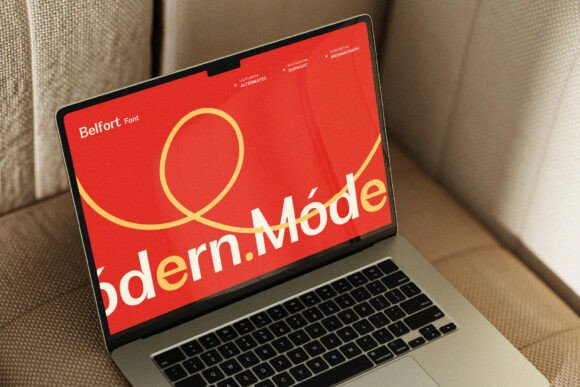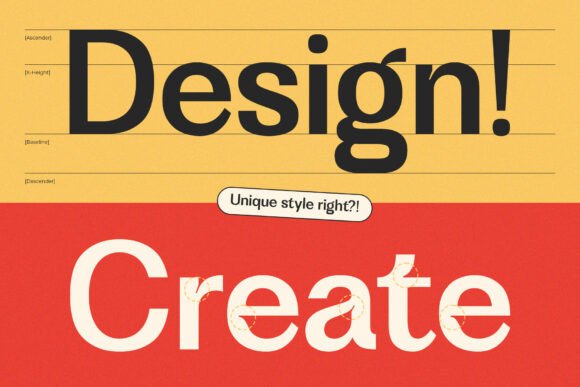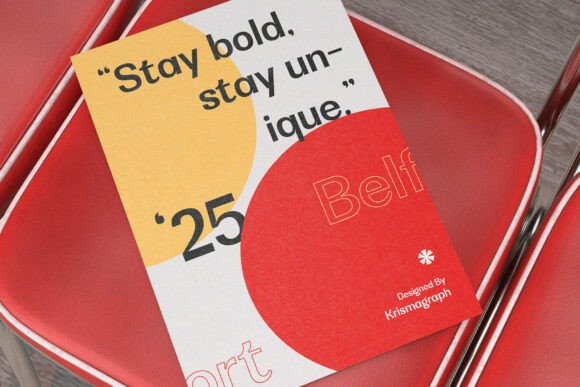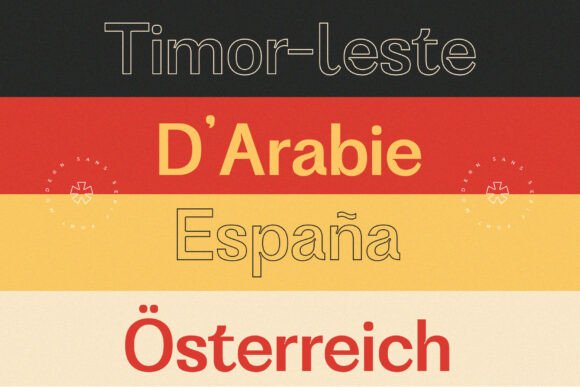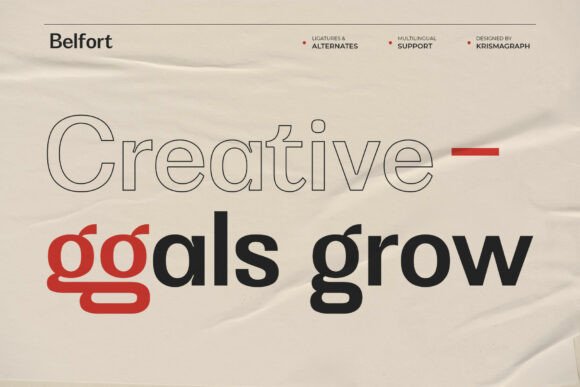
Belfort Bold Font: Elevate Your Designs with a Modern Sans-Serif Typeface
In the world of typography, a font can make or break a design. With the right font, your project can stand out from the crowd and leave a lasting impression on your audience. That’s where Belfort Bold comes in – a modern sans-serif font with a neo-Grotesk touch that’s perfect for designers and crafters looking to add a touch of sophistication to their work.
What is Belfort Bold Font?
Belfort Bold is a sans-serif typeface that boasts a simple, bold, and strong personality. Its clean lines and minimalist aesthetic make it easily accepted by readers, while its wide usage possibilities make it a versatile font for various projects. With ligatures and alternating letters, Belfort Bold adds a touch of elegance to any design.
Key Features of Belfort Bold Font
- Modern Sans-Serif Design: Belfort Bold features a sleek and contemporary sans-serif design that’s perfect for modern designs.
- Neo-Grotesk Touch: The font’s neo-Grotesk touch adds a hint of sophistication and elegance to your designs.
- Ligatures and Alternating Letters: Belfort Bold comes equipped with ligatures and alternating letters, adding a touch of uniqueness to your text.
- Multilingual Accent: The font supports multiple languages, making it perfect for global designs.
Why Choose Belfort Bold Font?
So, why should you choose Belfort Bold for your next project? Here are just a few reasons:
- Easily Incorporated into Various Projects: Belfort Bold’s versatility makes it easy to incorporate into a wide range of projects, from branding and advertising to packaging and digital designs.
- Simple yet Bold: The font’s simple design belies its bold personality, making it perfect for designs that need to make a statement.
- Strong Visual Impact: Belfort Bold’s clean lines and minimalist aesthetic make it perfect for creating designs with a strong visual impact.
How to Use Belfort Bold Font in Your Designs
Ready to add Belfort Bold to your design arsenal? Here are a few tips on how to use the font in your projects:
- Pair with Other Fonts: Experiment with pairing Belfort Bold with other fonts to create a unique and visually appealing design.
- Use for Headings and Titles: Belfort Bold’s bold personality makes it perfect for headings and titles – use it to add emphasis to your text.
- Add to Your Brand Identity: Consider adding Belfort Bold to your brand identity – its modern design and versatility make it perfect for creating a cohesive brand image.
| Author | krismagraph |
In conclusion, Belfort Bold Font is a modern sans-serif typeface that’s perfect for designers and crafters looking to elevate their designs. With its neo-Grotesk touch, ligatures, and multilingual accent, Belfort Bold is a versatile font that can easily be incorporated into a wide range of projects. So why not add it to your creative ideas and see how it can make your designs stand out?
Whether you’re a seasoned designer or just starting out, Belfort Bold Font is a great addition to your design toolkit. Its simplicity, boldness, and strong personality make it perfect for creating designs that leave a lasting impression. So go ahead, give Belfort Bold a try, and see how it can take your designs to the next level!